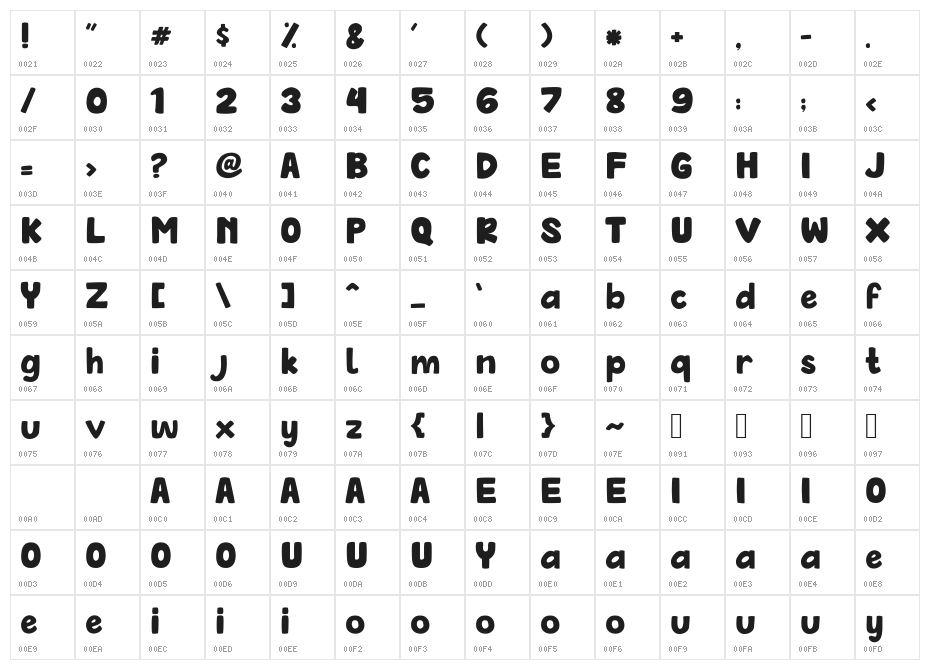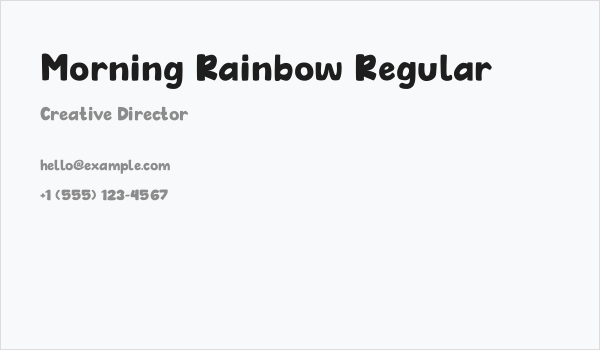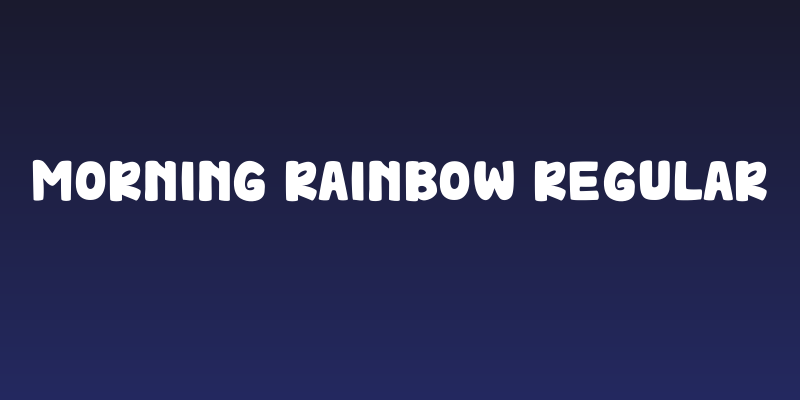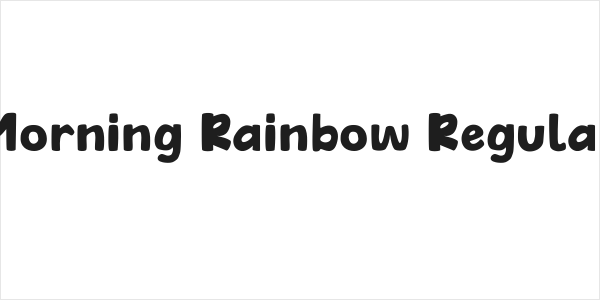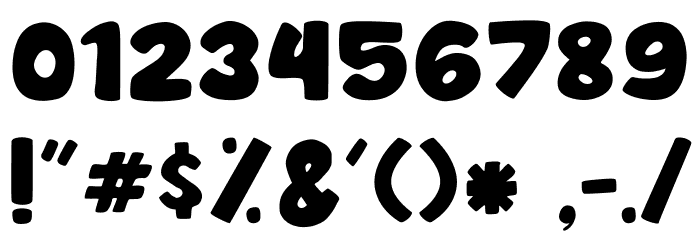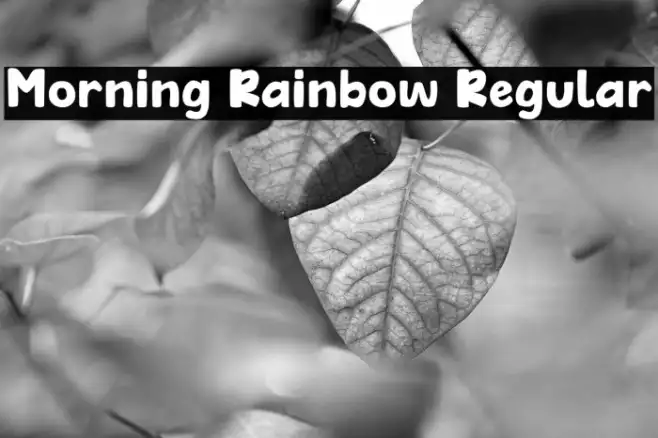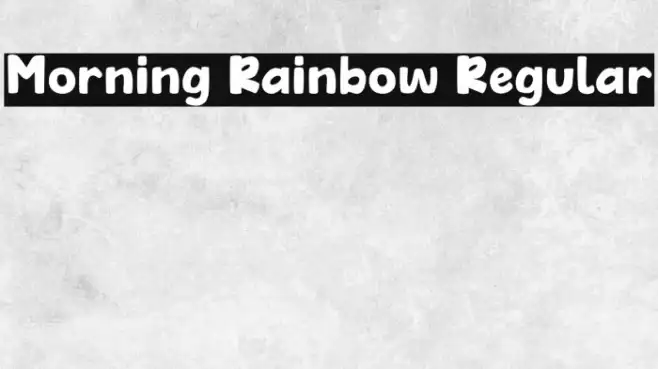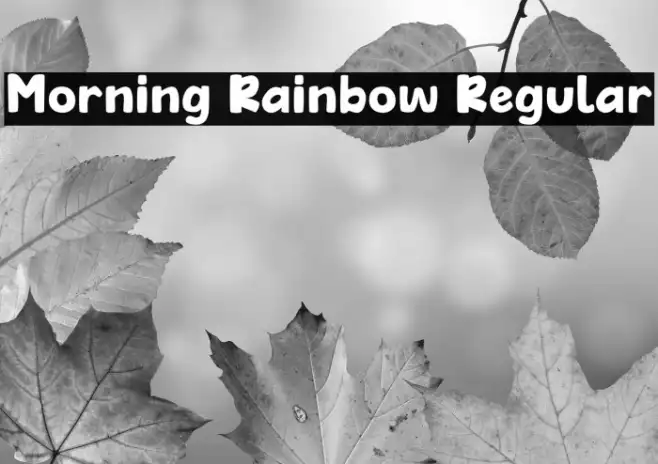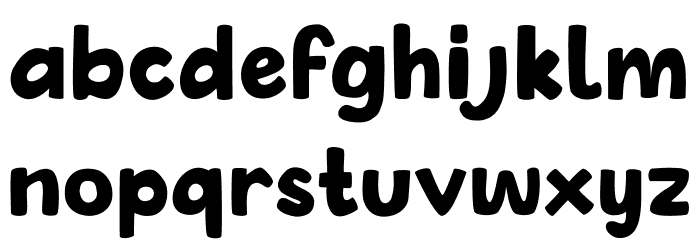
Morning Rainbow Regular Font
This playful and bold font features rounded edges and a thick, uniform stroke that gives it a friendly and approachable appearance. The characters are slightly condensed, contributing to a compact look that maintains readability. The uppercase and lowercase letters are well-balanced, with a consistent weight throughout. The numbers and special characters follow the same design principles, ensuring a cohesive look across all elements. This font's style is reminiscent of hand-drawn lettering, adding a personal touch to any design.
| Overall Style | Playful, Hand-drawn |
| Proposed Projects | Ideal for children's books, playful branding, posters, and social media graphics. |